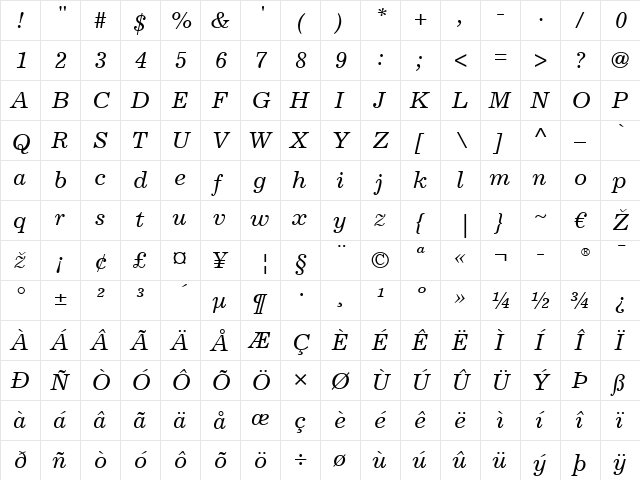
Excelsior LT Italic
Design Context for Excelsior LT Typeface
Excelsior LT is a composed and adaptable typeface that performs quietly and consistently across a wide range of design contexts. The dynamic lean of this cut emphasises speed and emphasis in any layout. Its slender proportions lend an understated elegance to any composition.
Pro Tip: Use Excelsior LT for emphasis, pull quotes, and subheadings where its slanted energy can add rhythm to the layout.